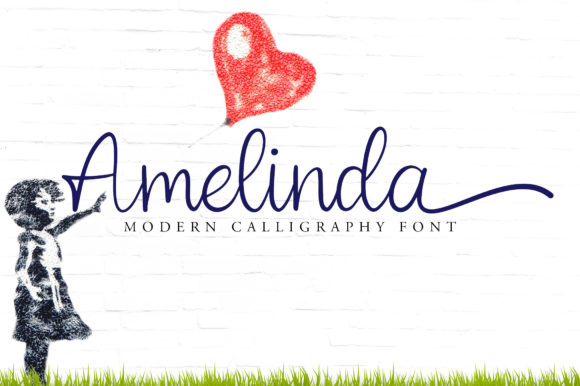
The Amelinda Font: A Bold and Beautiful Handwritten Style
Have you ever been in the middle of a design project, and suddenly, you just can’t seem to find the right font? I know I have. It’s like trying to find the perfect pair of shoes to complete an outfit – it’s all about the details. Recently, I was working on a branding project for a client who wanted a font that exuded confidence, authenticity, and charm. That’s when I stumbled upon the Amelinda font, and let me tell you, it’s been a game-changer.
A Personal Review: What I Love About Amelinda
So, what makes Amelinda so special? Here are a few things that I absolutely love about this font:
- ✨ Sophisticated and bold: Amelinda has a unique blend of elegance and boldness that’s perfect for making a statement.
- ✅ PUA encoded: This means that you can access all of the glyphs and swashes with ease, giving you endless creative possibilities.
- 💫 Versatile: Whether you’re working on a logo, a poster, or a social media graphic, Amelinda is a versatile font that can handle it all.
While Amelinda is an amazing font, there are a few small quirks to keep in mind:
- 🤔 Some characters may require manual kerning: As with any font, you may need to adjust the kerning on some characters to get the perfect look.
- ⚠️ Not suitable for body text: Amelinda is a display font, so it’s best used for headlines and titles rather than large blocks of text.
The Story Behind Amelinda
While I couldn’t find any information on the exact design process behind Amelinda, I like to imagine that it was created by a team of designers who wanted to craft a font that was both bold and beautiful. Perhaps they were inspired by the elegance of handwritten scripts and the sophistication of modern typography. Whatever the story, Amelinda is a true gem that deserves to be showcased in your designs.
| What is Amelinda? | Amelinda is a bold and beautiful handwritten font that’s great for delivering messages with confidence, authenticity, and charm. |
| Is Amelinda PUA encoded? | Yes, Amelinda is PUA encoded, which means you can access all of the glyphs and swashes with ease. |
| Is Amelinda suitable for body text? | No, Amelinda is a display font and is best used for headlines and titles rather than large blocks of text. |